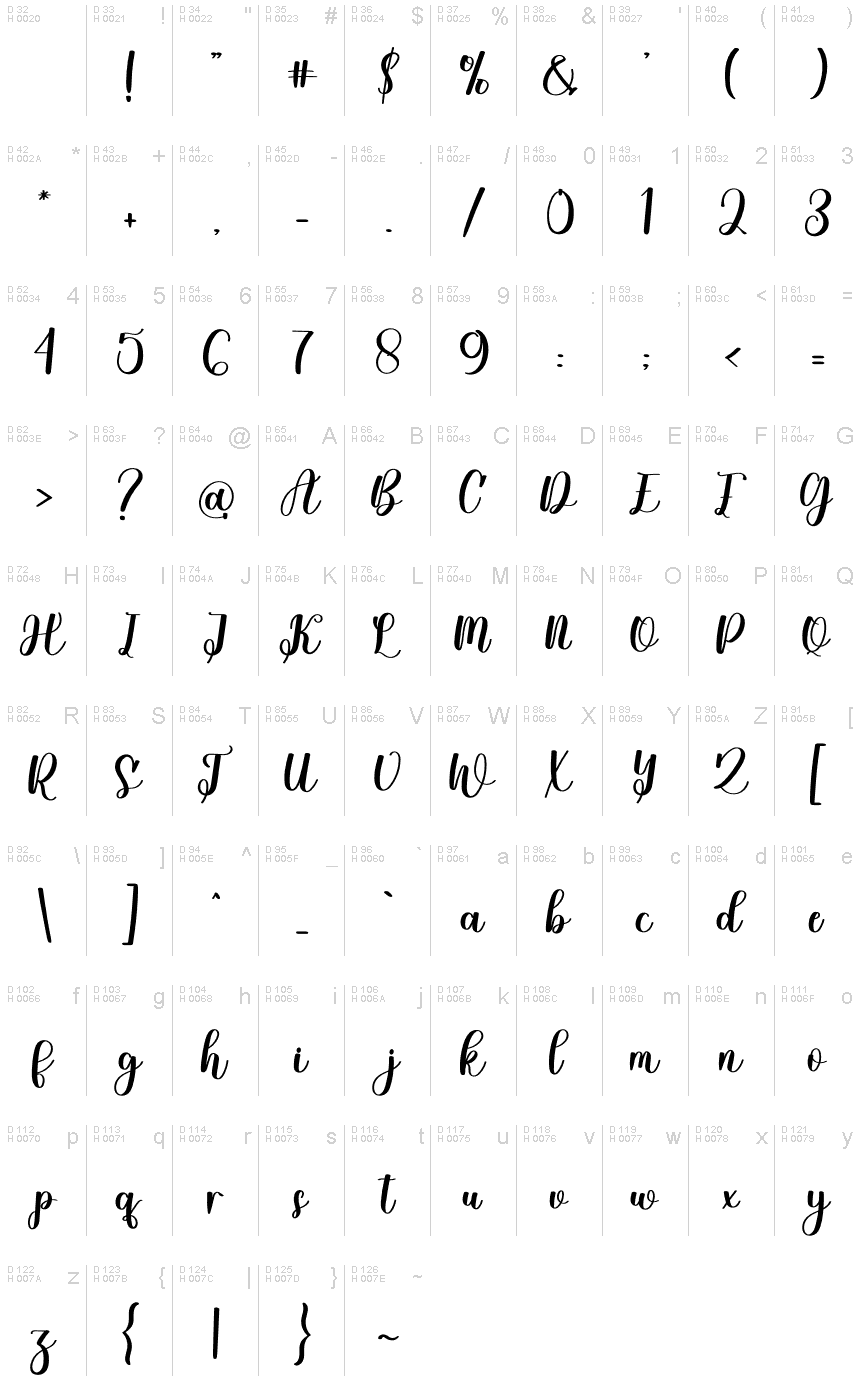
Moshiphone
Moshiphone, the exquisite calligraphy font designed by FreshtypeINK, captures the essence of elegance and sophistication. With its graceful curves and flowing strokes, this font adds a touch of refinement to any project. Ideal for wedding invitations, luxury branding, or fashion editorials, Moshiphone exudes timeless charm. Its versatile semi-bold typeface ensures legibility while showcasing the artistry of each letterform. Whether creating captivating logos or designing captivating book covers, Moshiphone is your go-to choice for projects that demand an air of opulence and grace. Elevate your designs with Moshiphone's enchanting calligraphic allure today.